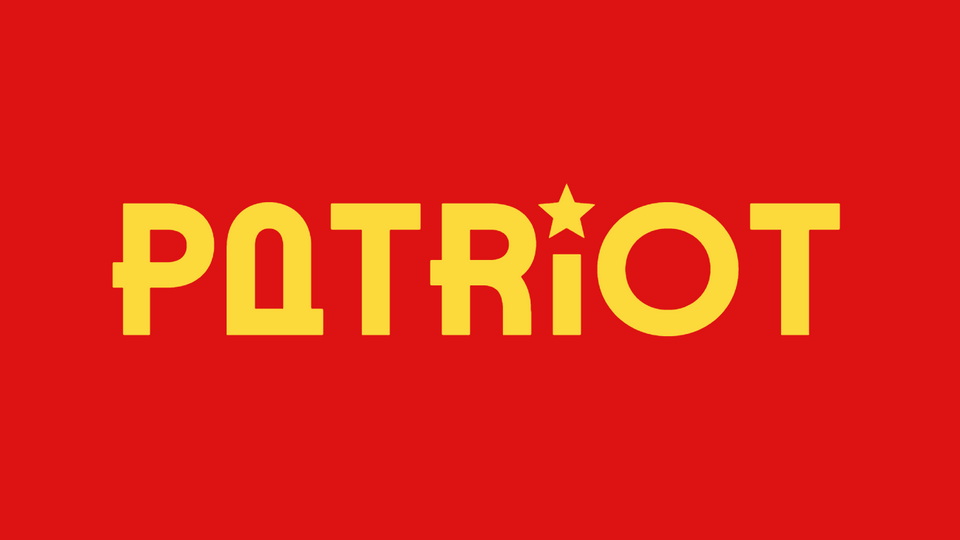
Download Patriot font, a sans serif typeface inspired by the hand-lettered typography on the cover of a historic songbook archived in the Hồ Chí Minh Museum. Patriot expresses its confident charisma through the bold and utilitarian letterforms
Designer: Behalf Studio